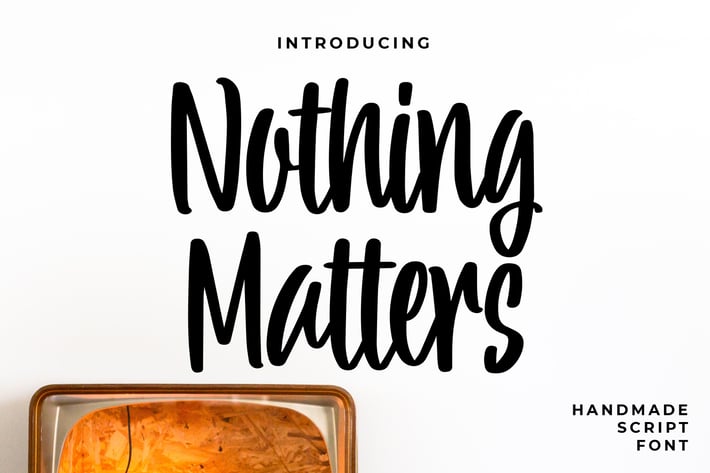
Nothing Matters - Handmade Script Font
Nothing Matters - Handmade Script Font contains a lowercase, uppercase, symbol, and also supports multi-language. There’s a lot of ligature in this font. Nothing Matters - Handmade Script Font also comes with ligatures, stylistic alternates and many more.
this font suitable for fashion, branding, catalog and other design that you want.